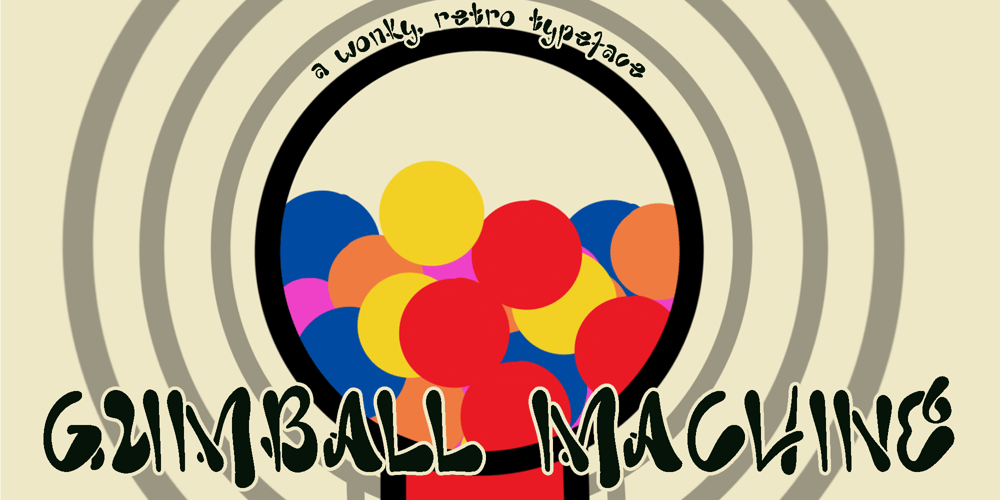
Gumball Machine Font Family was designed by Rachel McBride and published by Rachel McBride Creative. Gumball Machine contains 8 styles and family package options. Gumball Machine Typeface is everything you ever wanted in retro type design. With eight font styles, its disconnected and eccentric nature is enough to give any project some funk. Amazing for the spring and summertime!Use for website and brand design, product labeling, album/movie/project graphics, t-shirts and clothing, and anything else that needs a spark!Gumball Machine has 440 glyphs and supports most western languages.